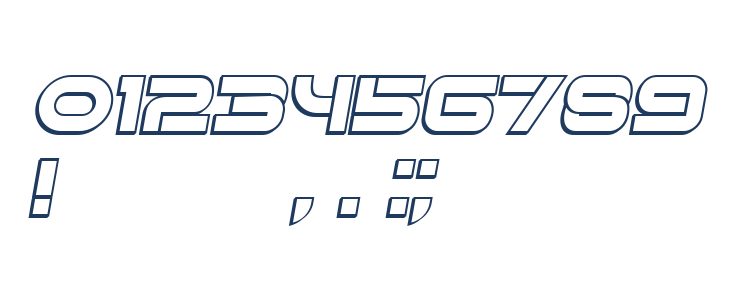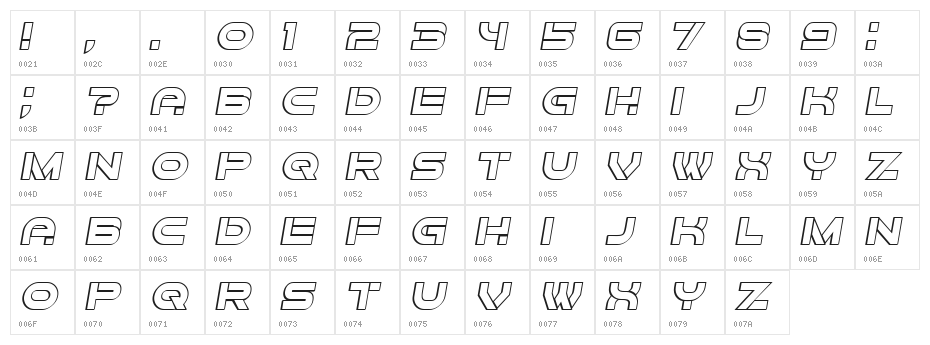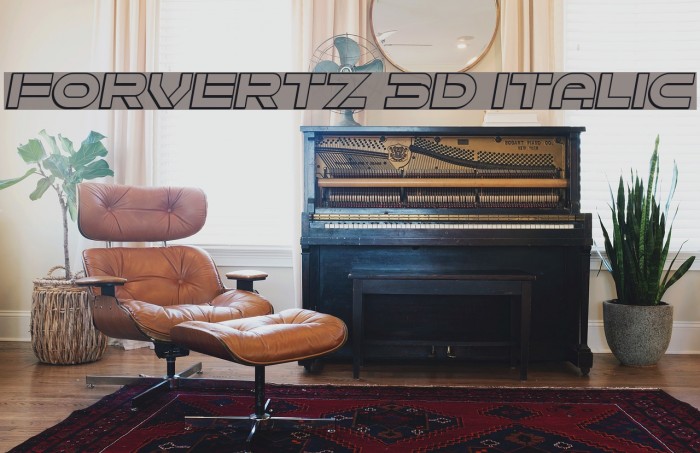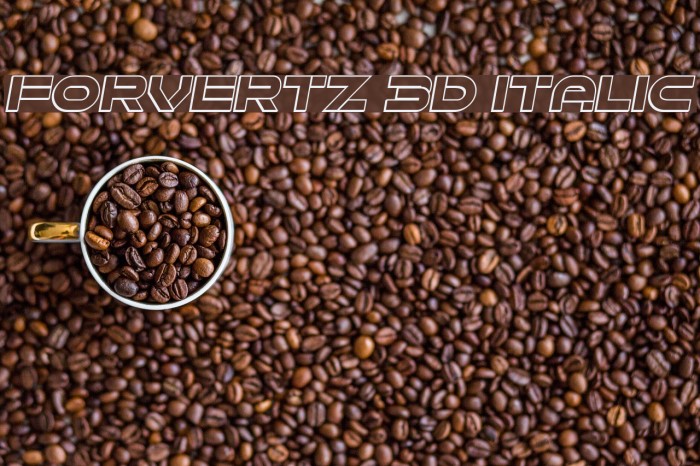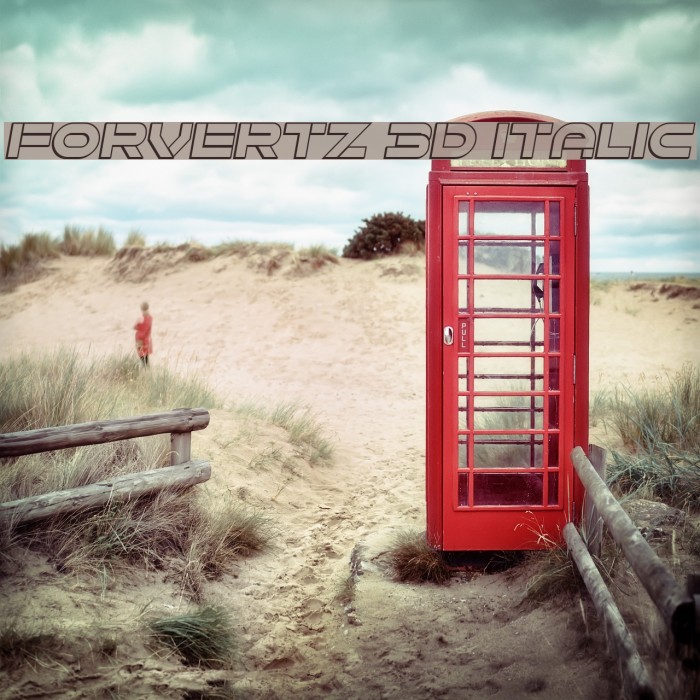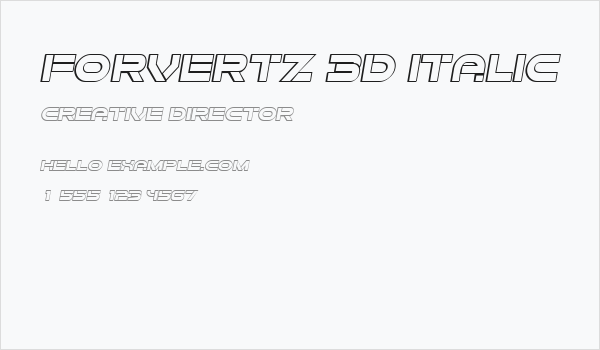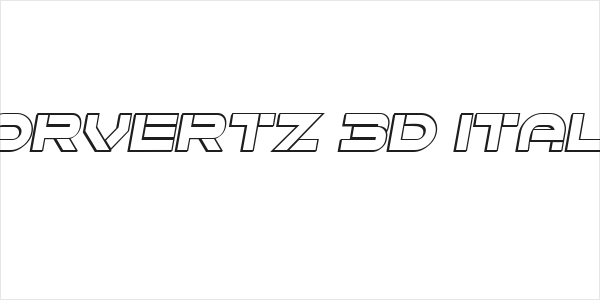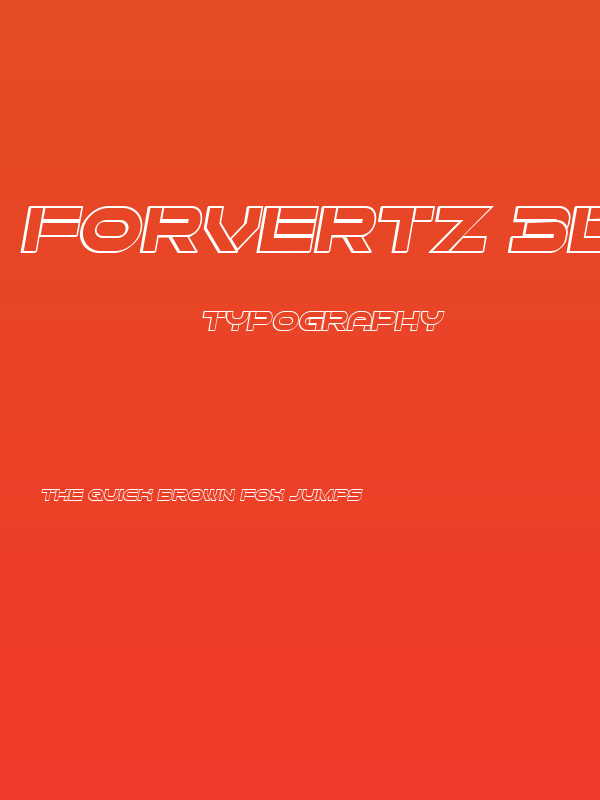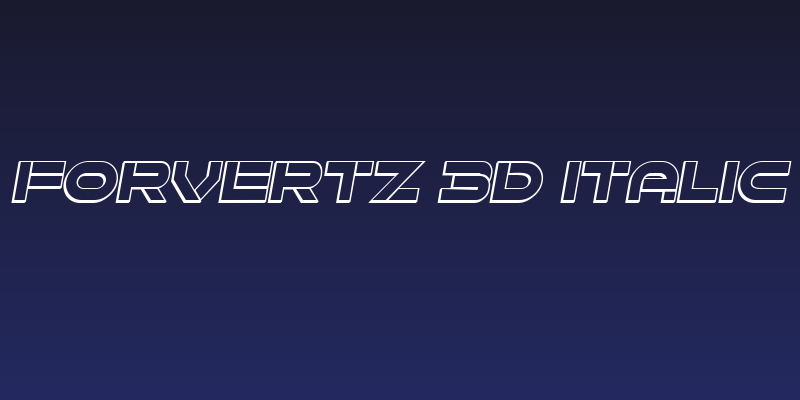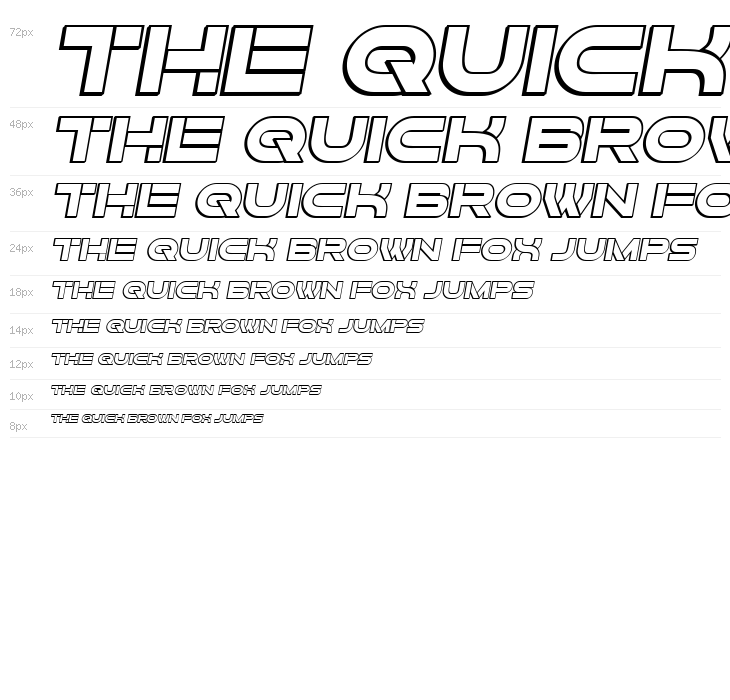
Forvertz 3D Italic Font
Forvertz 3D Italic Description
This font features a dynamic 3D effect with a futuristic and geometric style. The letters are outlined with a bold, angular design that gives a sense of depth and movement. The italic slant adds to its modern appeal, making it stand out with a unique, tech-inspired aesthetic. The uppercase and lowercase characters maintain a consistent style, with numerals and special characters following the same design principles. This font is ideal for projects that require a bold statement and a modern, edgy look.
| Proposed Projects | Ideal for tech branding, futuristic posters, video game titles, and sci-fi themed designs. |